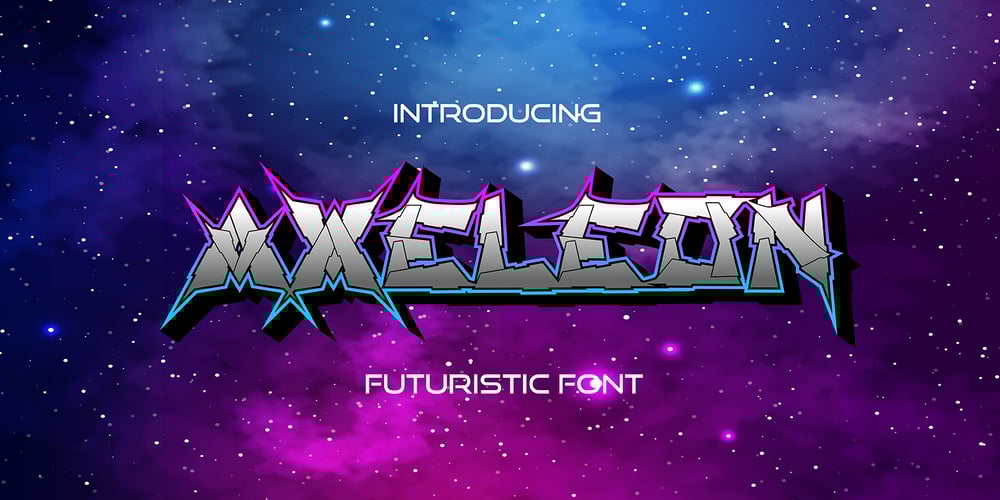
Axeleon Abstract Font Family was designed by Sipanji and published by Sipanji21. Axeleon Abstract contains 1 styles and family package options. Axeleon is great looking with a futuristic, rough, and metal-themed Display font. It will look great in death metal music projects, poster, logo band, band apparel, metal music logo, music album and much more!